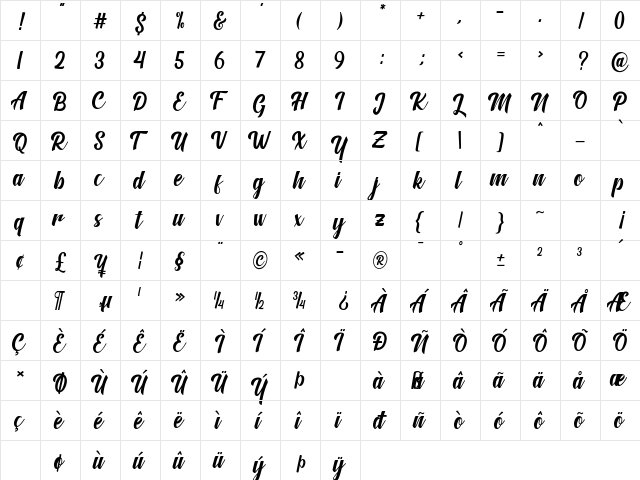
Madison Script Regular
Design Context for Madison Script Typeface
Madison Script brings a calligraphic fluidity to the page — its connecting strokes and expressive curves give it an unmistakably human quality.
Font Pairing: Combine Madison Script with a simple geometric sans for maximum contrast — the tension between flowing curves and clean structure is a classic typographic pairing.
Pro Tip: Pair Madison Script with a clean sans-serif for supporting text. The contrast between fluid script and geometric structure creates an elegant typographic hierarchy.